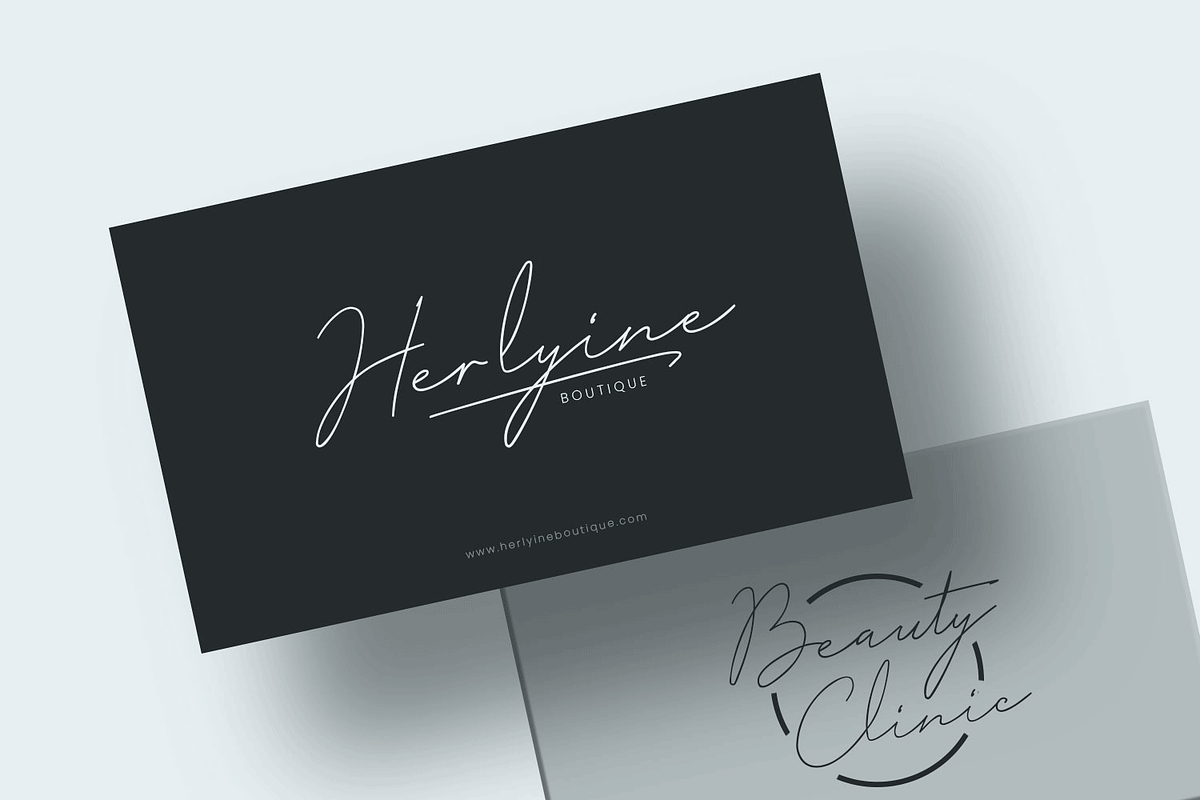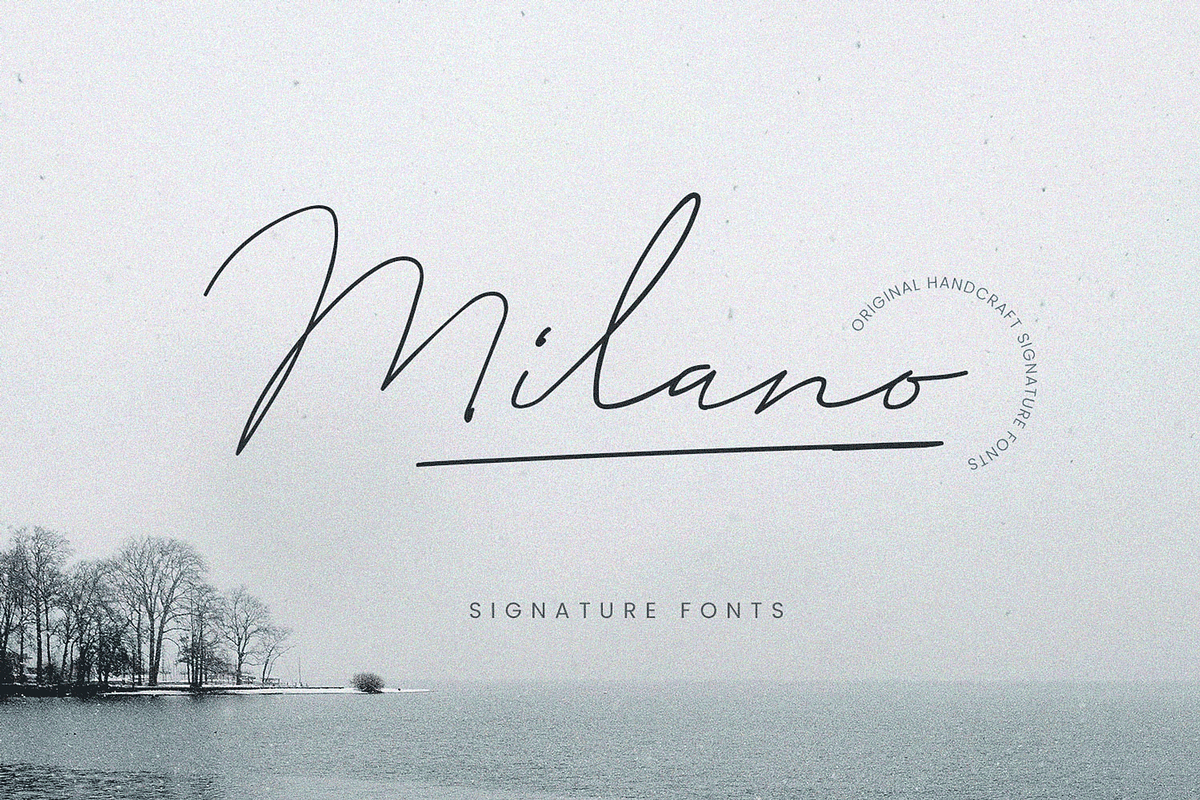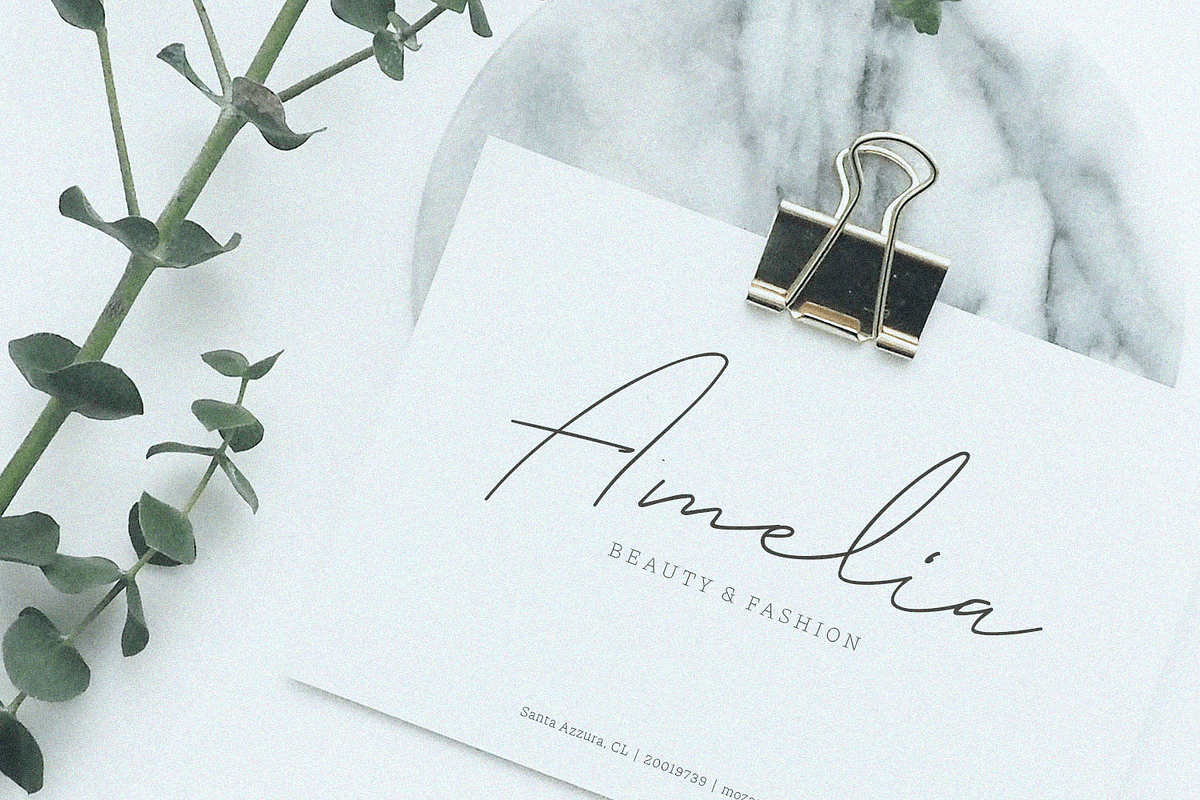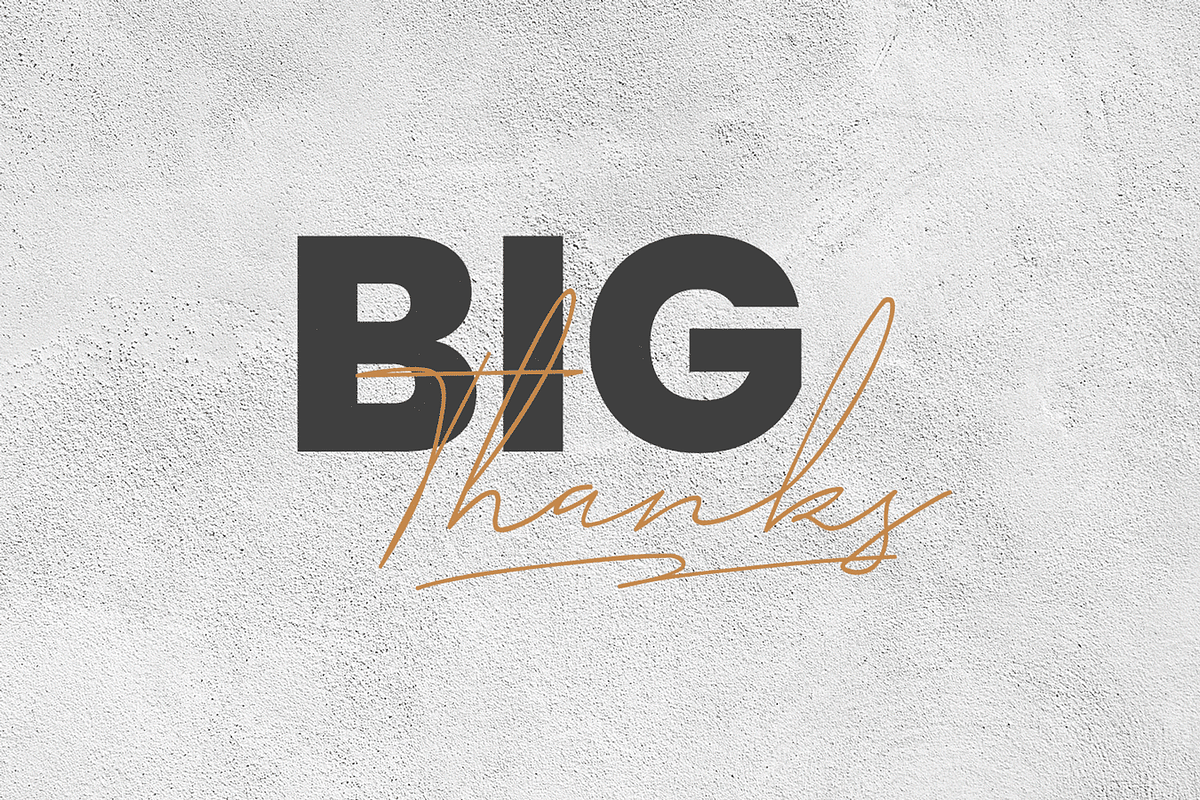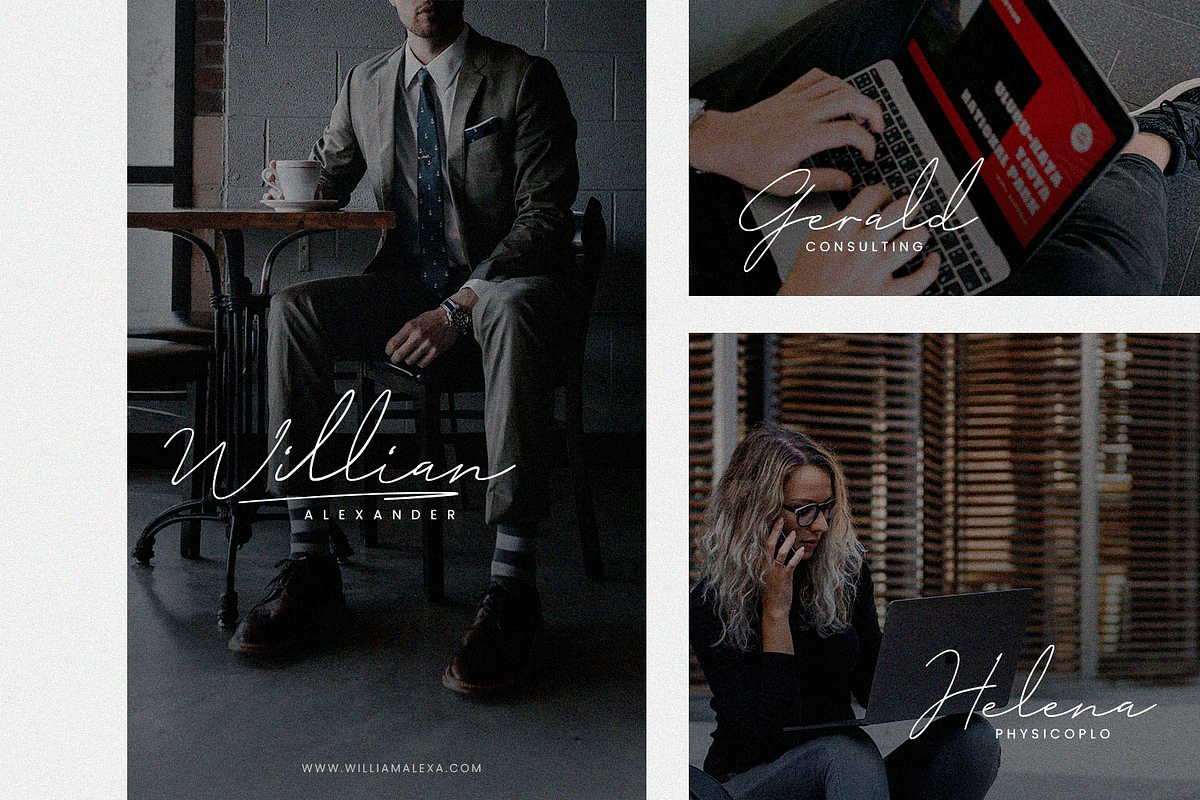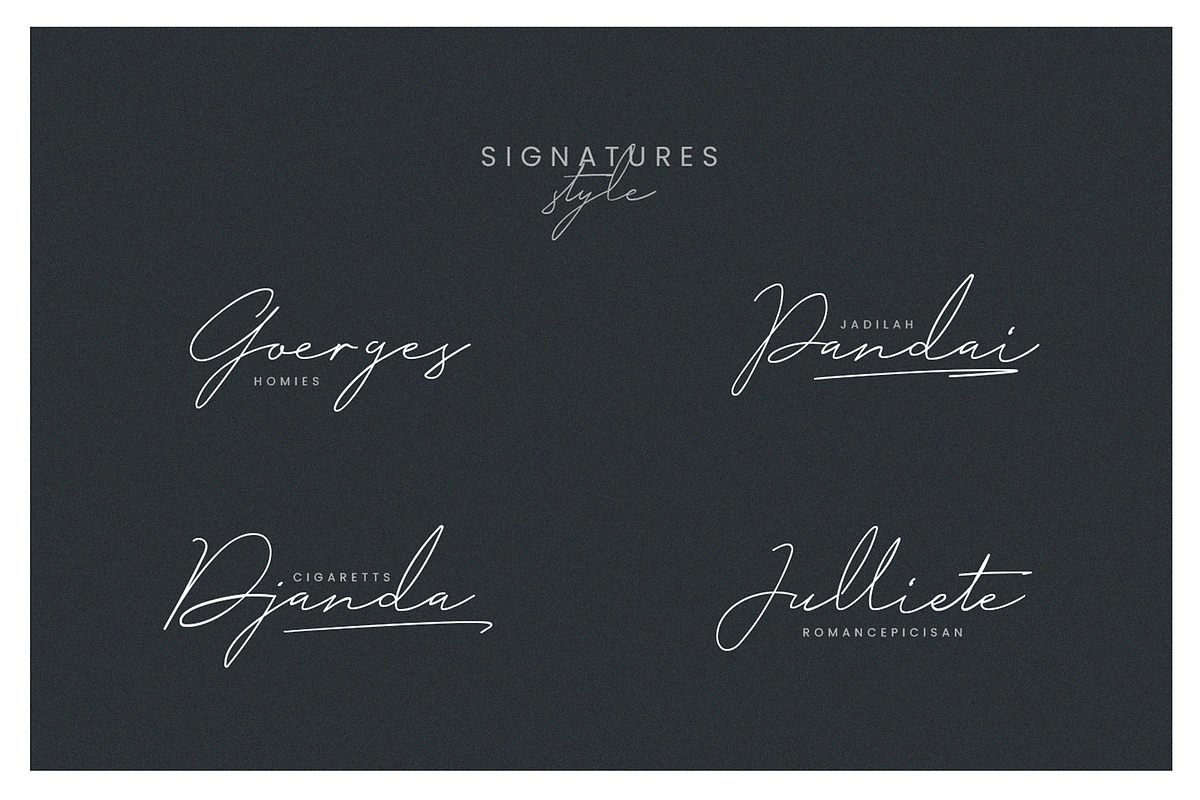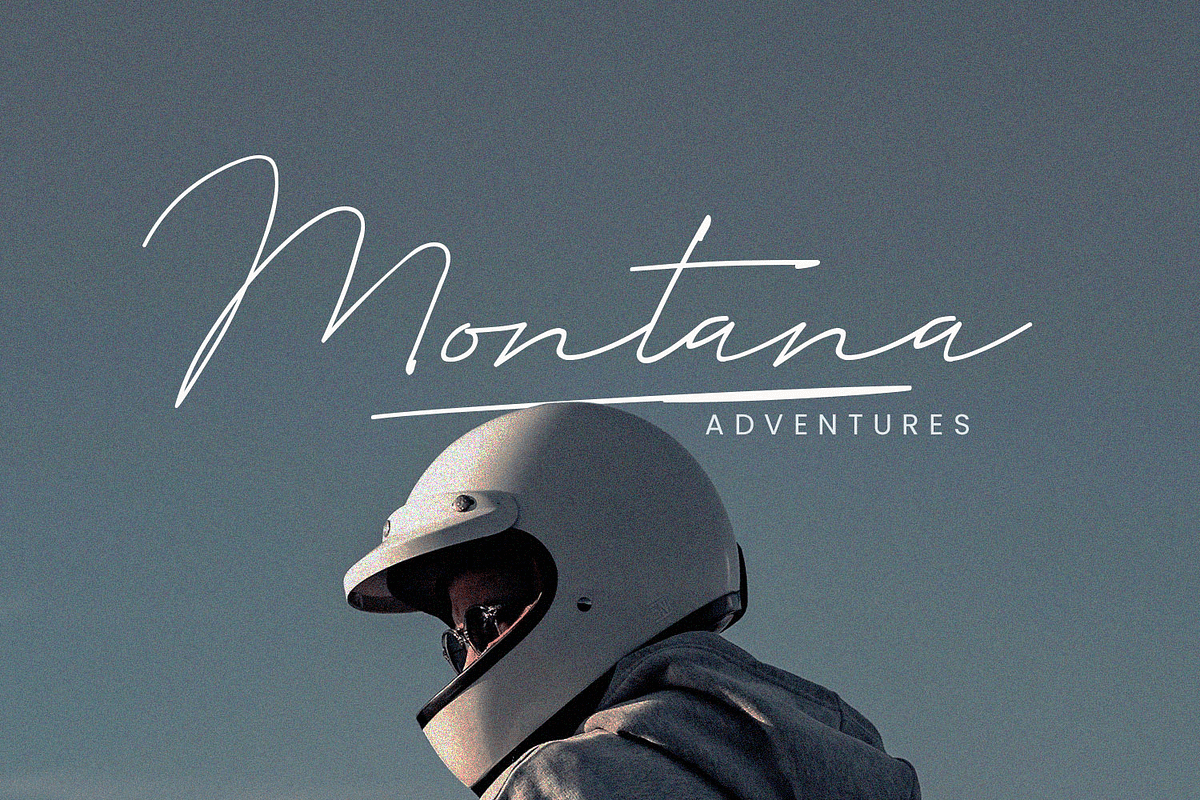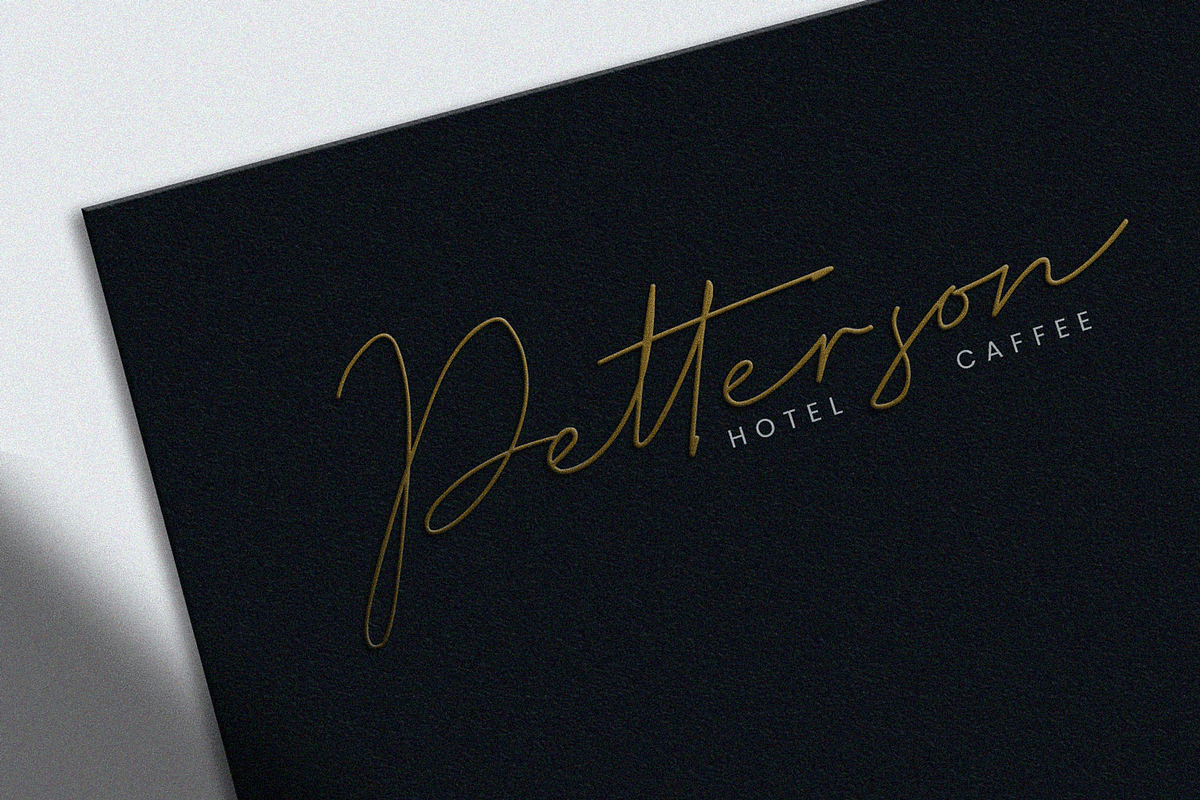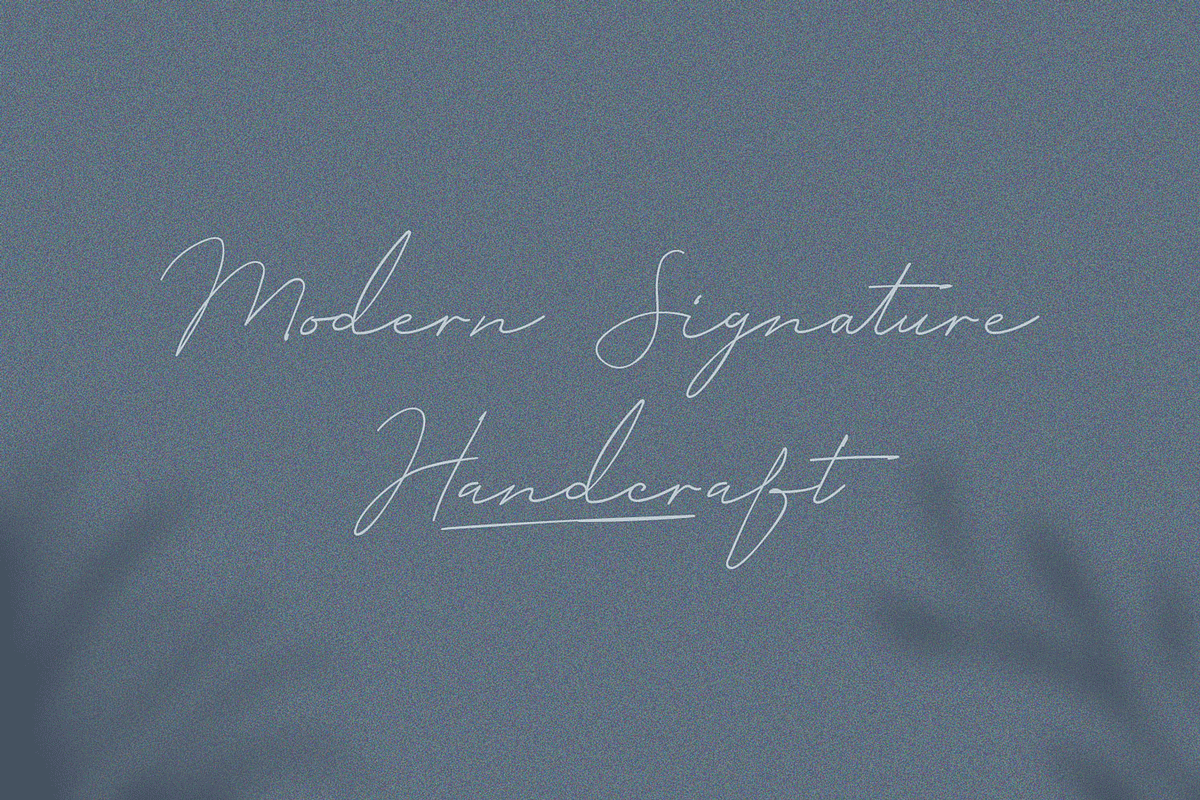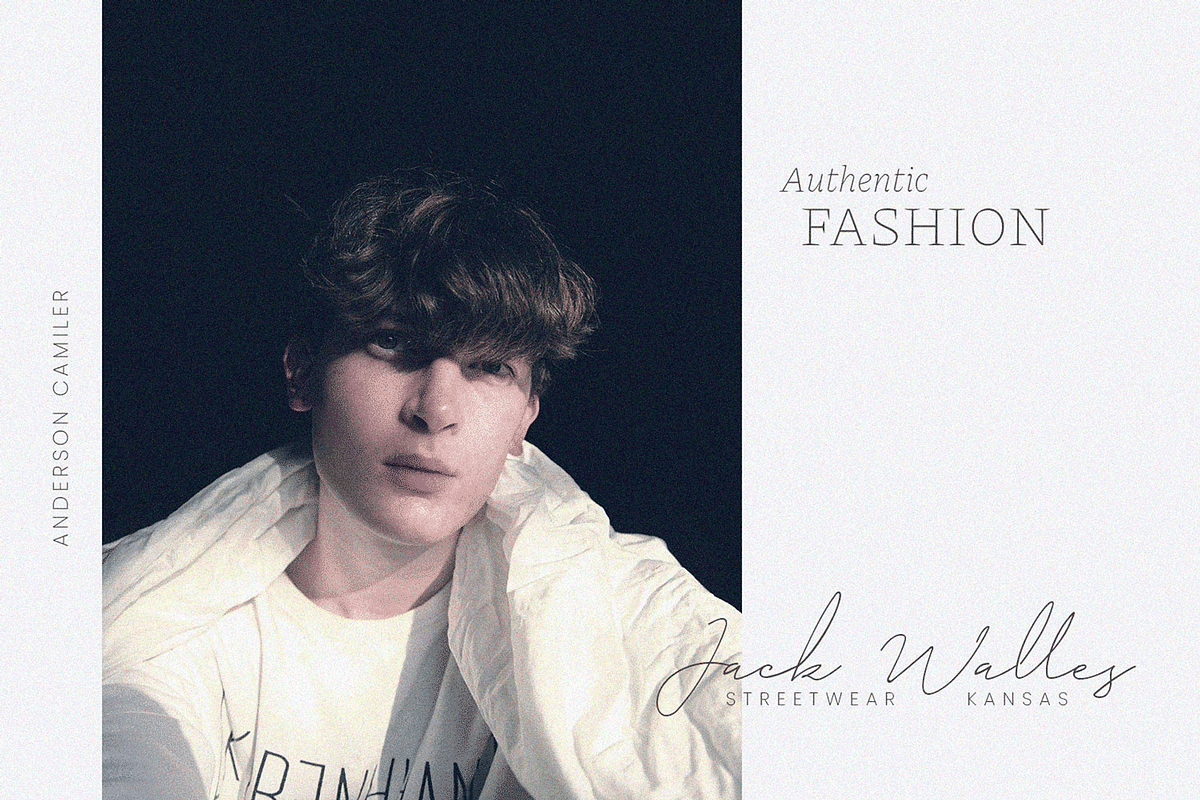
Milano Signature Font
Hello Folks! Milano inspired from signature style with luxury vibes, this font suitable for your creative designs project. You can used such as flyer, business card, branding, product packaging, logotype and more, so you can explore this font from your creative idea.